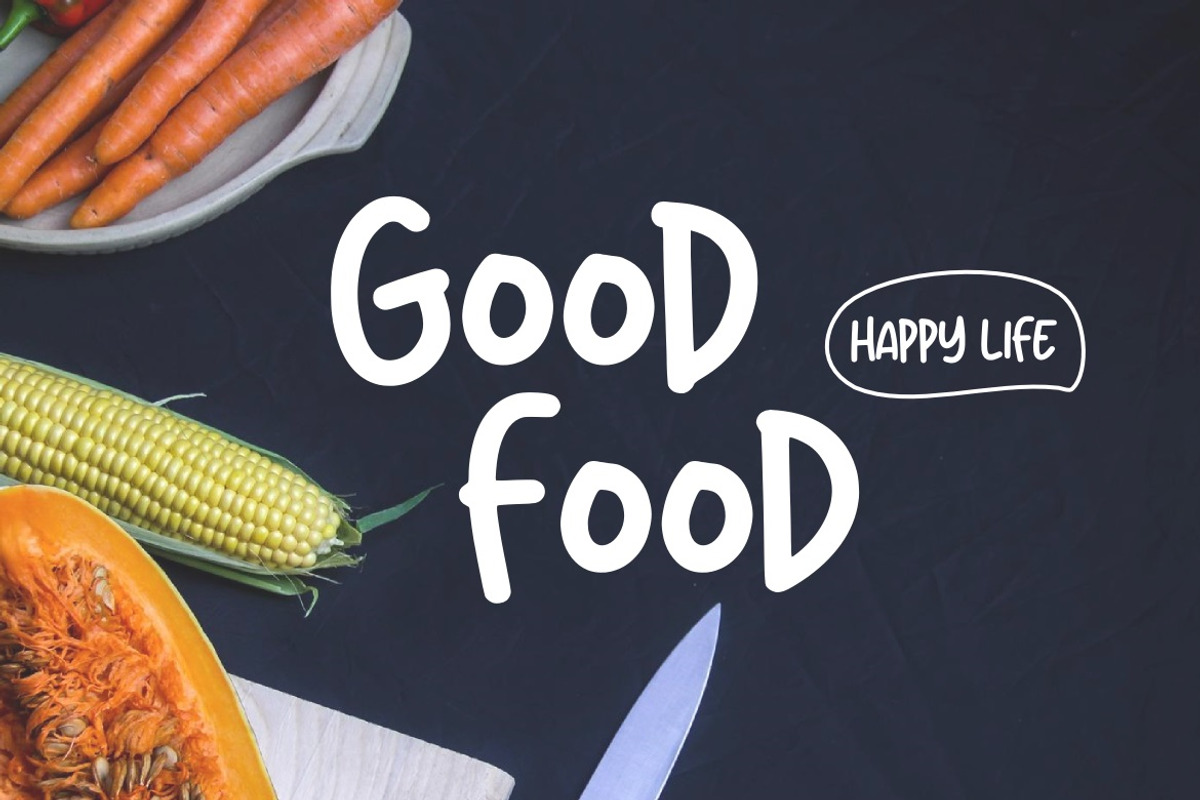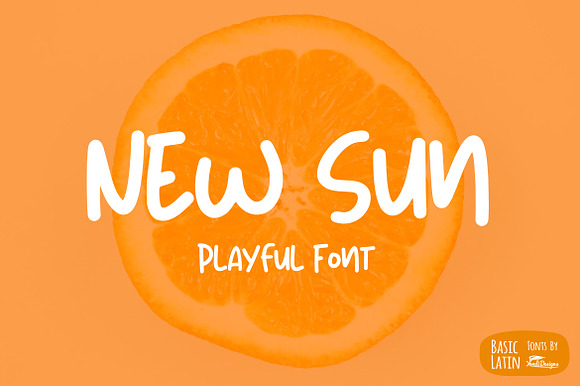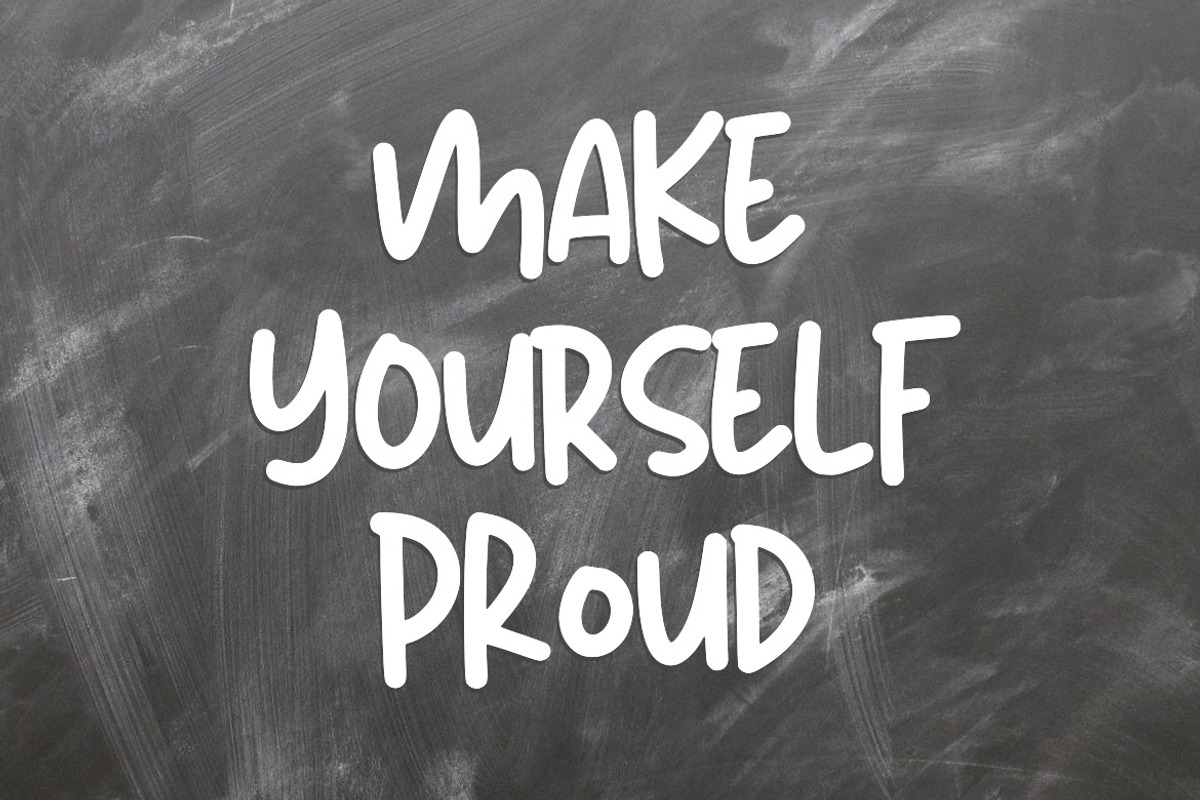
New Sun Playful Font
Simple playful font , suitable for many project , quotes, logo , doodle, heading , title etc.
Why New Sun Playful Font is worth a look
New Sun Playful Font by YandiDesigns fits naturally into Branding, posters, packaging, typography.